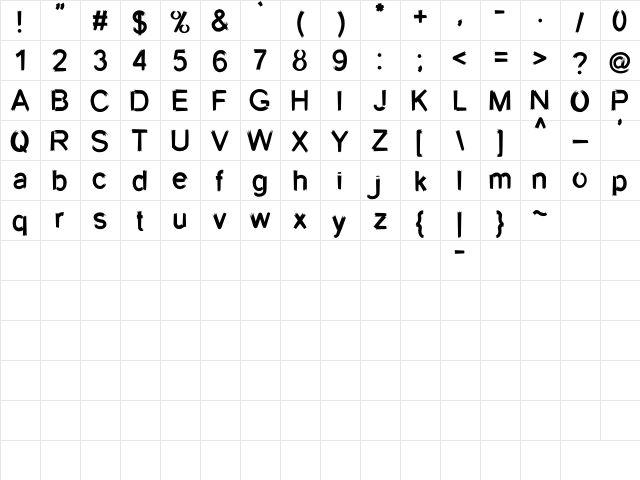
Better ghost Regular
| Designer | Hindro cholis |
Design Context for Better ghost Typeface
Better ghost offers clean, dependable letterforms without strong stylistic allegiance, making it a practical choice for designers who need flexibility.